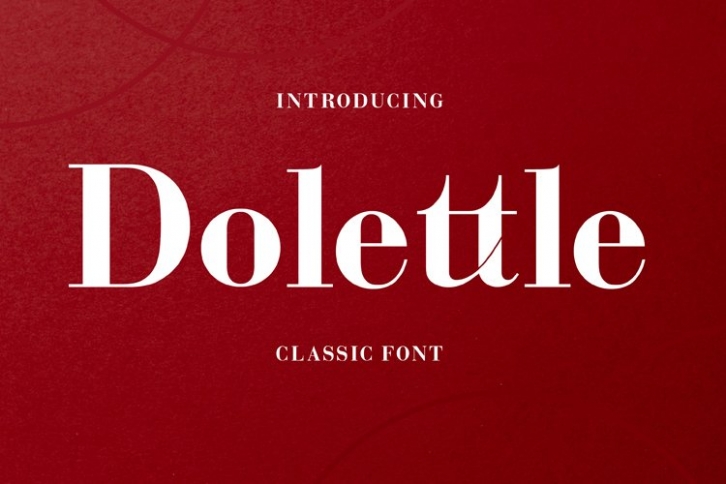
Dolittle is a gorgeous font that was realeased on July 1, 2020. The font can be used in many style contexts and design environments. Perfect for invitations, magazines, websites, logos, and more! It was designed by Edcreative and the file size is 16.27 MB. Thanks for checking out this font!